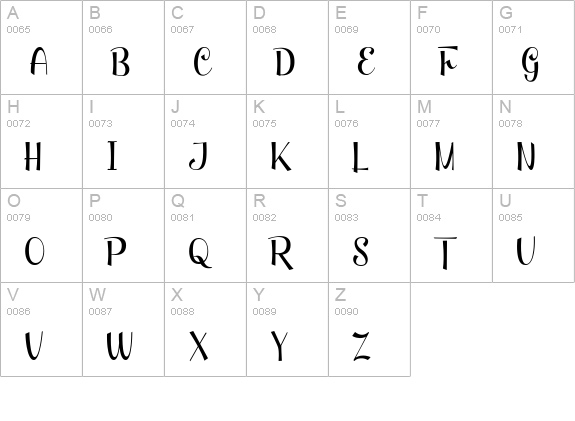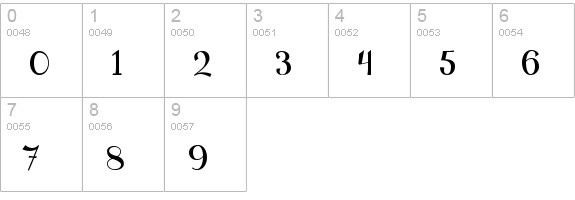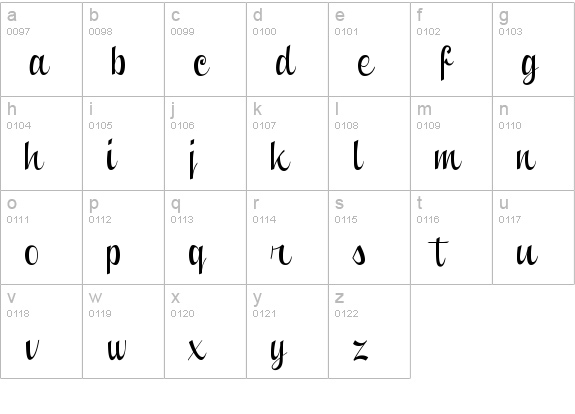
Clipper Script Fat (Personal Use) Font Details
Clipper Script Fat (Personal Use) is a beautifully designed font that exudes elegance and sophistication. This delightful script font features bold strokes and elaborate curves, making it perfect for adding a touch of flair to your projects. Whether you're creating invitations, posters, logos, or any other creative endeavor, Clipper Script Fat (Personal Use) will elevate your designs to new heights. Its unique and eye-catching aesthetic will captivate your audience and leave a lasting impression. What's even better is that Clipper Script Fat (Personal Use) is completely free! Yes, you read that right. This amazing font is freely available to download at FontsMarket.com. So, you can enjoy the beauty and versatility of this font without spending a dime. With Clipper Script Fat (Personal Use), you have the freedom to unleash your creativity and explore endless possibilities. Its versatility allows it to seamlessly fit into various design styles, from vintage and retro to modern and contemporary. Don't miss out on this incredible opportunity to enhance your designs with Clipper Script Fat (Personal Use). Download it for free today at FontsMarket.com and let your imagination run wild.